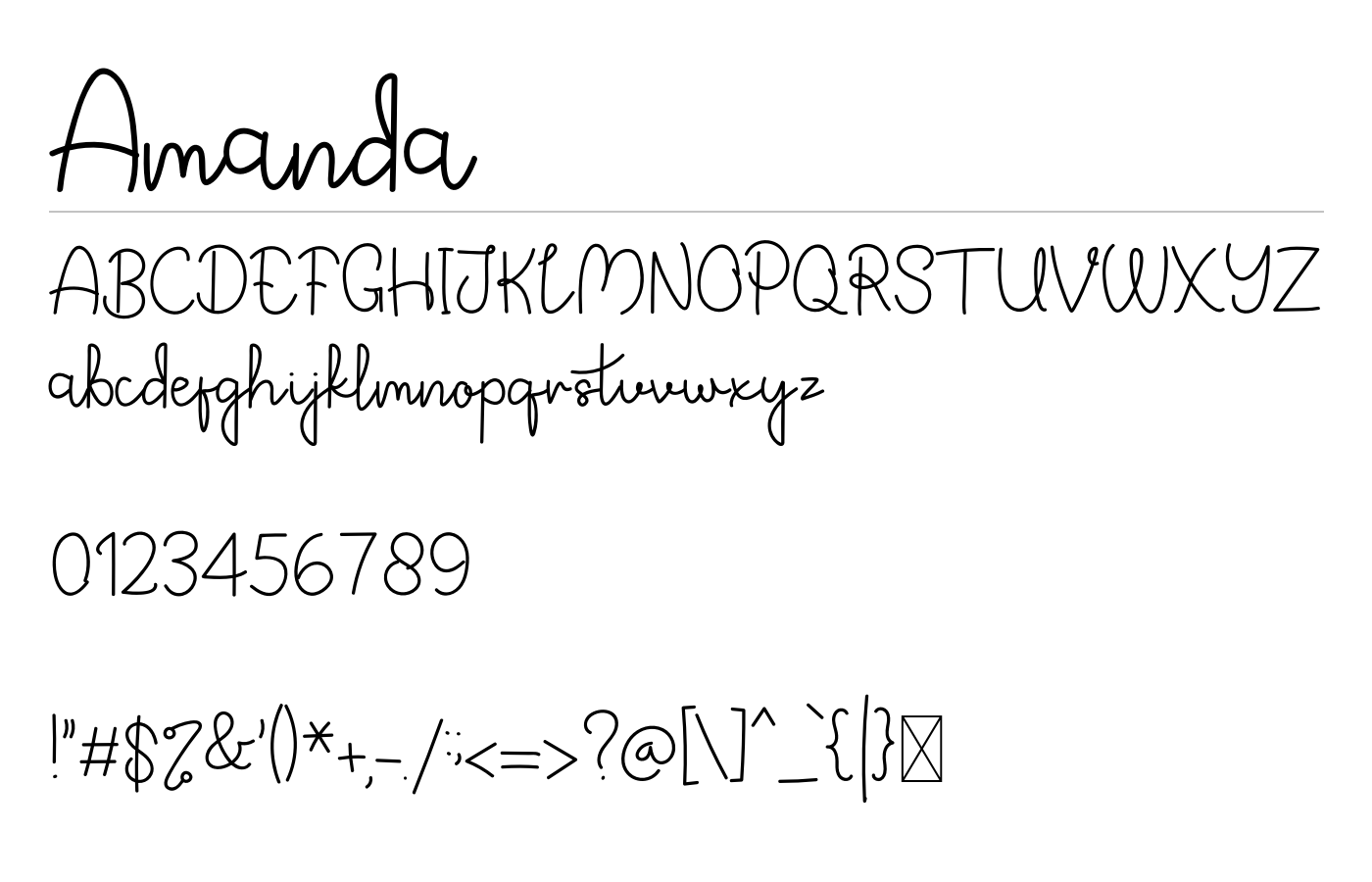
Amanda Font is a playful and casual handwritten script with a light weight and airy spacing that gives it a friendly, approachable feel. Its smooth, organic strokes and slightly whimsical letterforms make it ideal for creative branding, invitations, and informal editorial work where a personal touch is desired. This font works beautifully in contexts that benefit from warmth and charm, such as lifestyle blogs, greeting cards, and boutique packaging.
Amanda Font
About Amanda Font